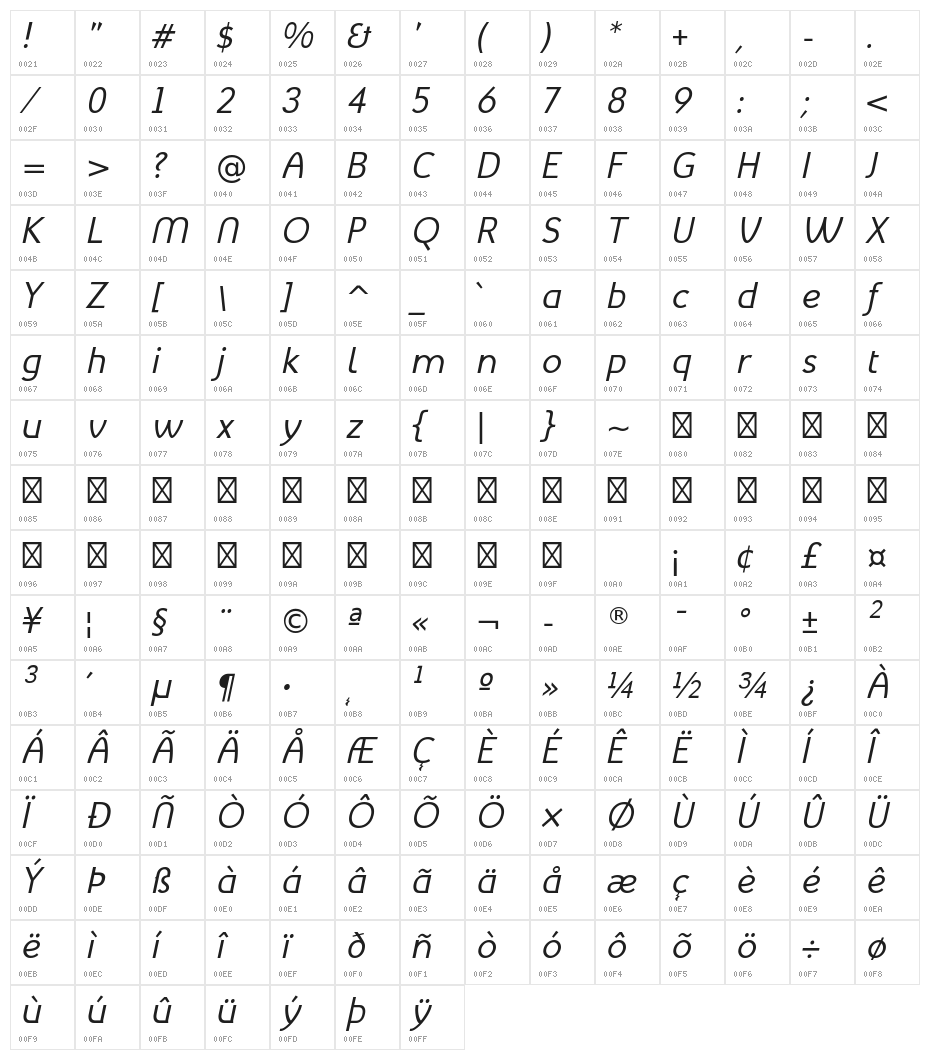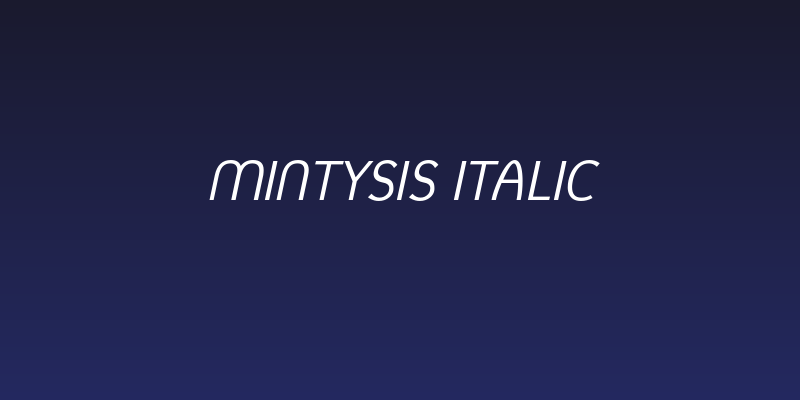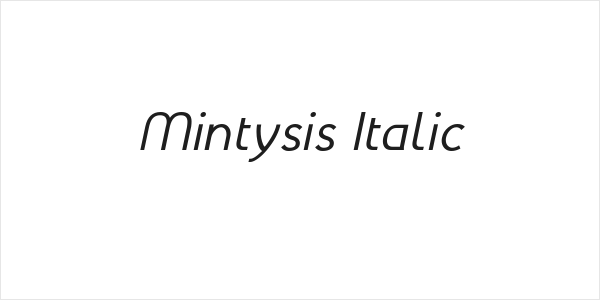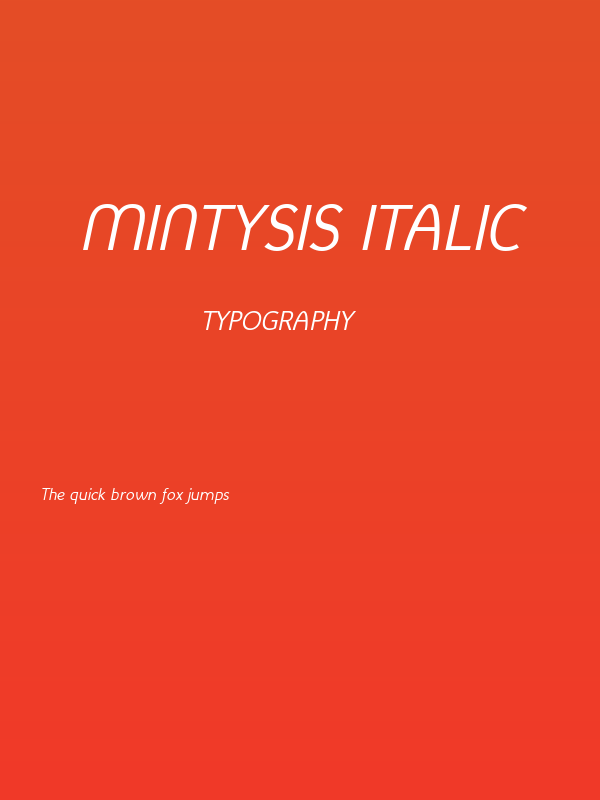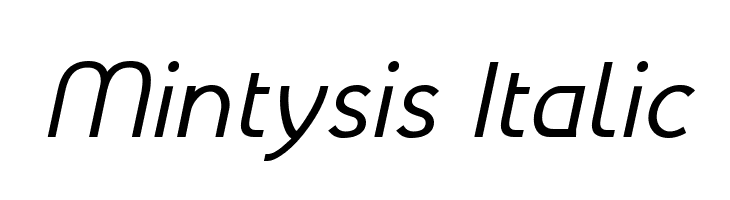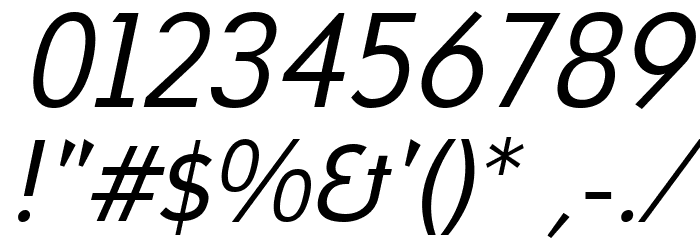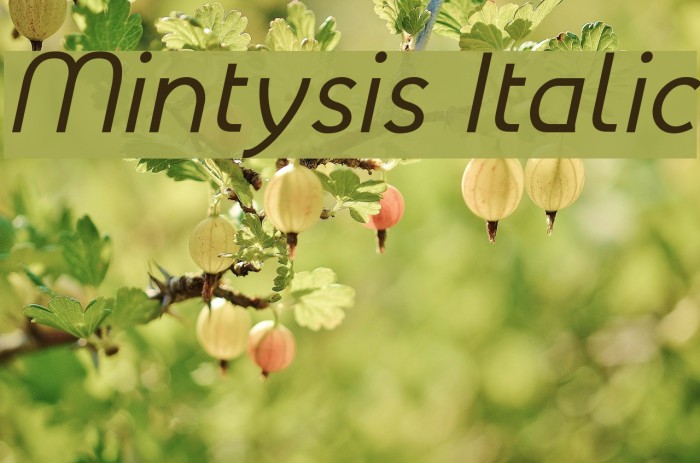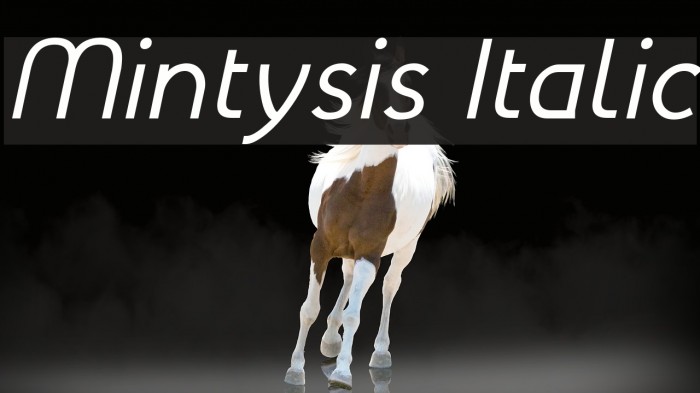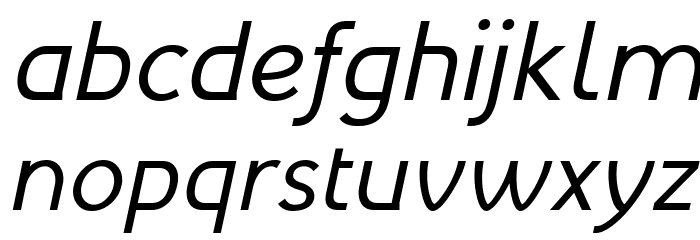
Mintysis Italic Font
✎ Sans Serif
Mintysis Italic Description
This font features a sleek and modern design with a slight italic slant, giving it a dynamic and forward-moving appearance. The characters are clean and sans-serif, providing a contemporary look that is both professional and approachable. The strokes are consistent in weight, offering a uniform appearance across all characters. The numerals and special characters maintain the same stylistic approach, ensuring cohesion throughout. This font is versatile, suitable for various applications where a modern and elegant touch is desired.
| Use Case | Headlines, Body text, Logos |
| Proposed Projects | Ideal for branding, advertising, digital content, and editorial design where a modern and elegant look is required. |